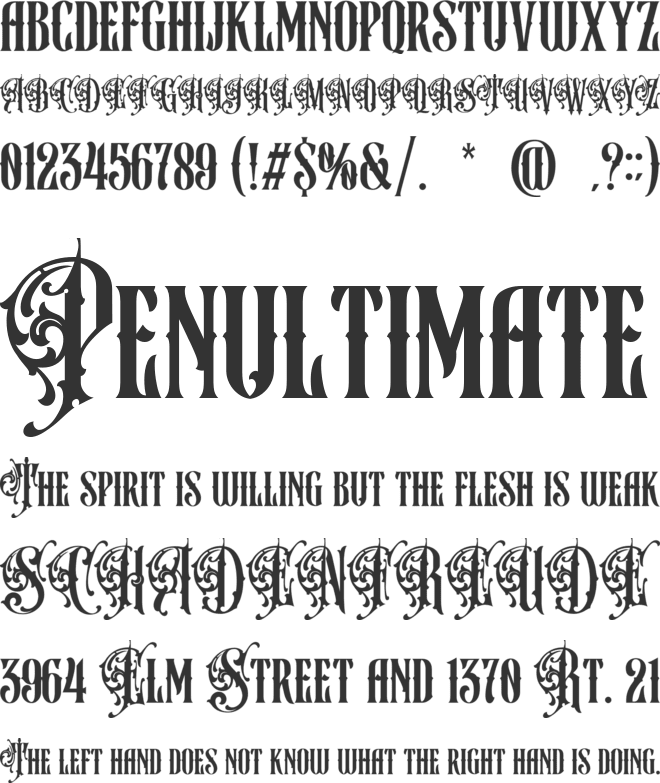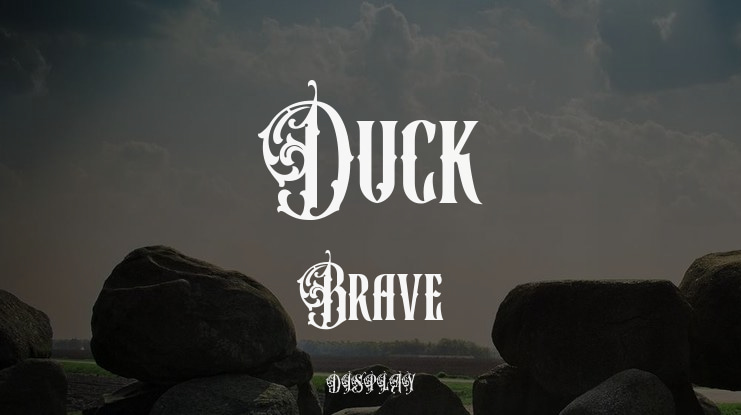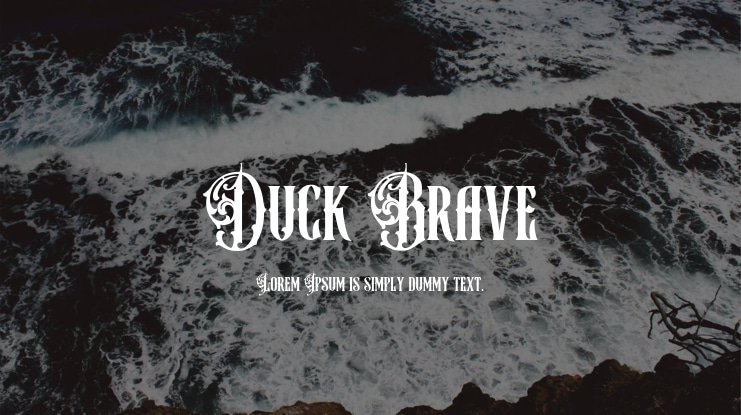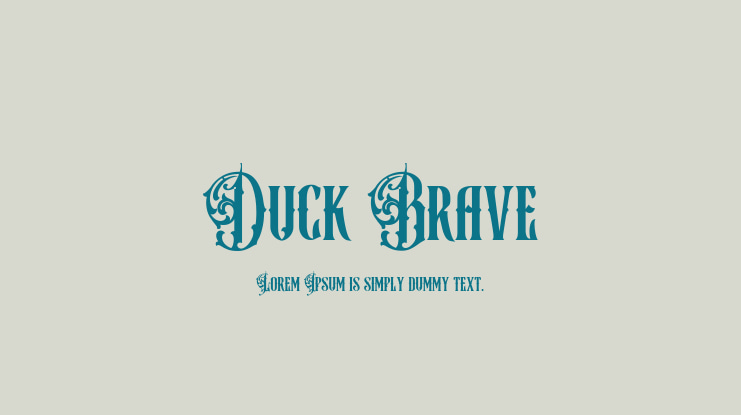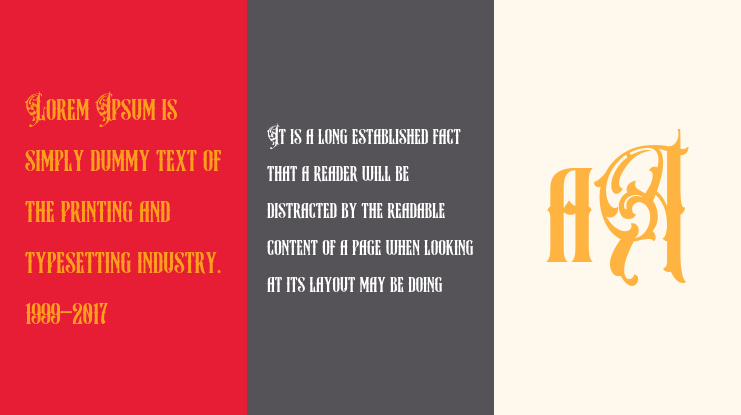
Duck Brave Font
Duck Brave Victorian Typeface: A Classic Masterpiece
Experience the elegance and charm of a bygone era with the Duck Brave Victorian Typeface. This meticulously crafted typeface captures the spirit of Victorian aesthetics, featuring intricate details that make it perfect for designs that exude sophistication and timeless appeal. With its ornate carvings and elaborate swashes, Duck Brave pays homage to Victorian artistry, helping your designs shine with enduring beauty.